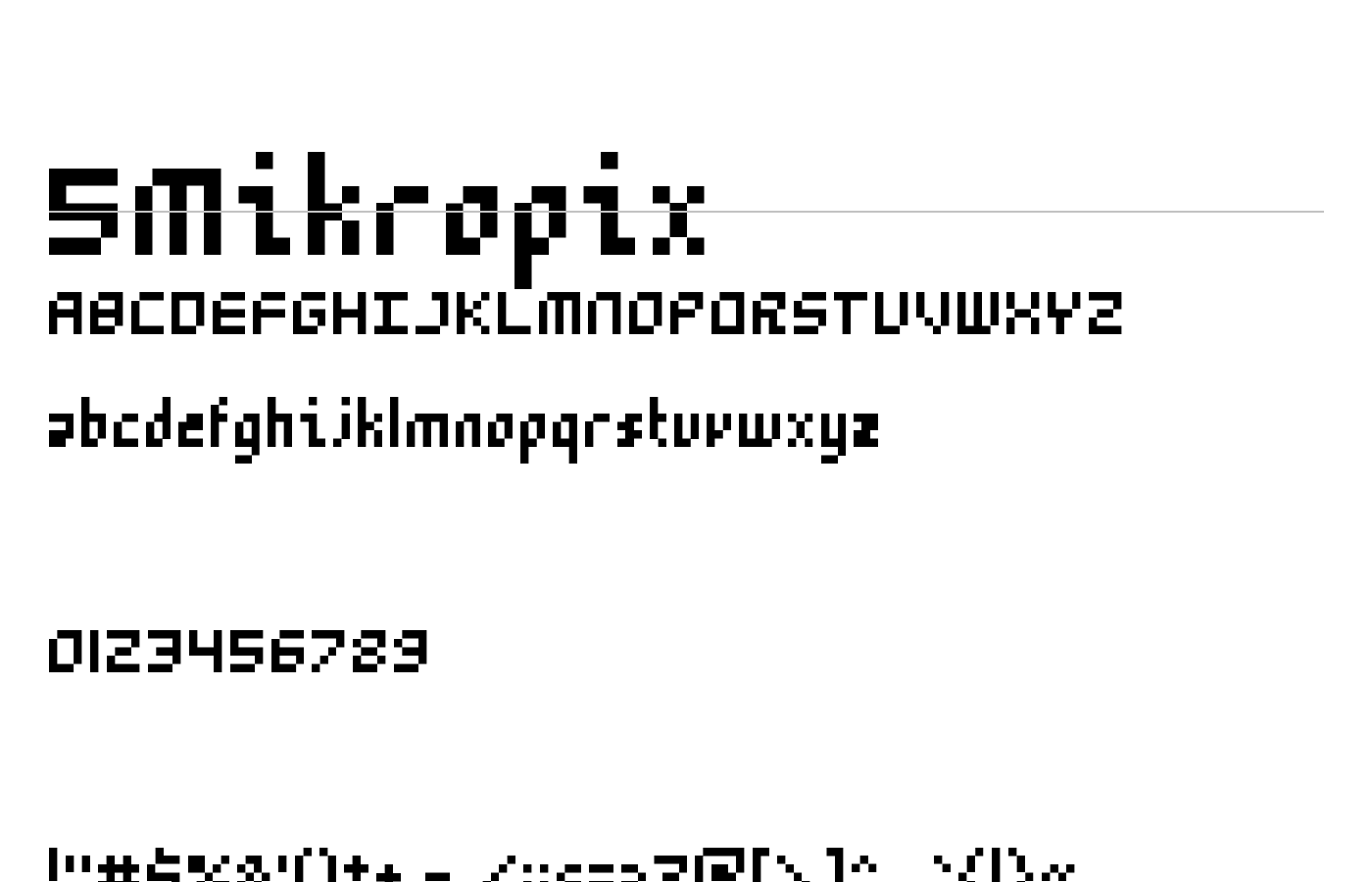
5Mikropix is a pixel-style sans serif font characterized by its blocky, geometric letterforms that mimic early digital and video game typography. It features a uniform, regular weight with a condensed width and a clean, low-contrast design that emphasizes sharp, square strokes, perfect for retro, tech, or gaming-related projects. This font works well for digital interfaces, logos, posters, and headlines where a nostalgic, minimalist, and pixelated look is desired.
5Mikropix Font
About 5Mikropix Font
| Font family | 5Mikropix Font |
| Languages supported | Latin, Cyrillic, Symbols, Arabic |
| Release date | 2013-03-24 |
| Designer | Noah - 10 year old typomaniac |